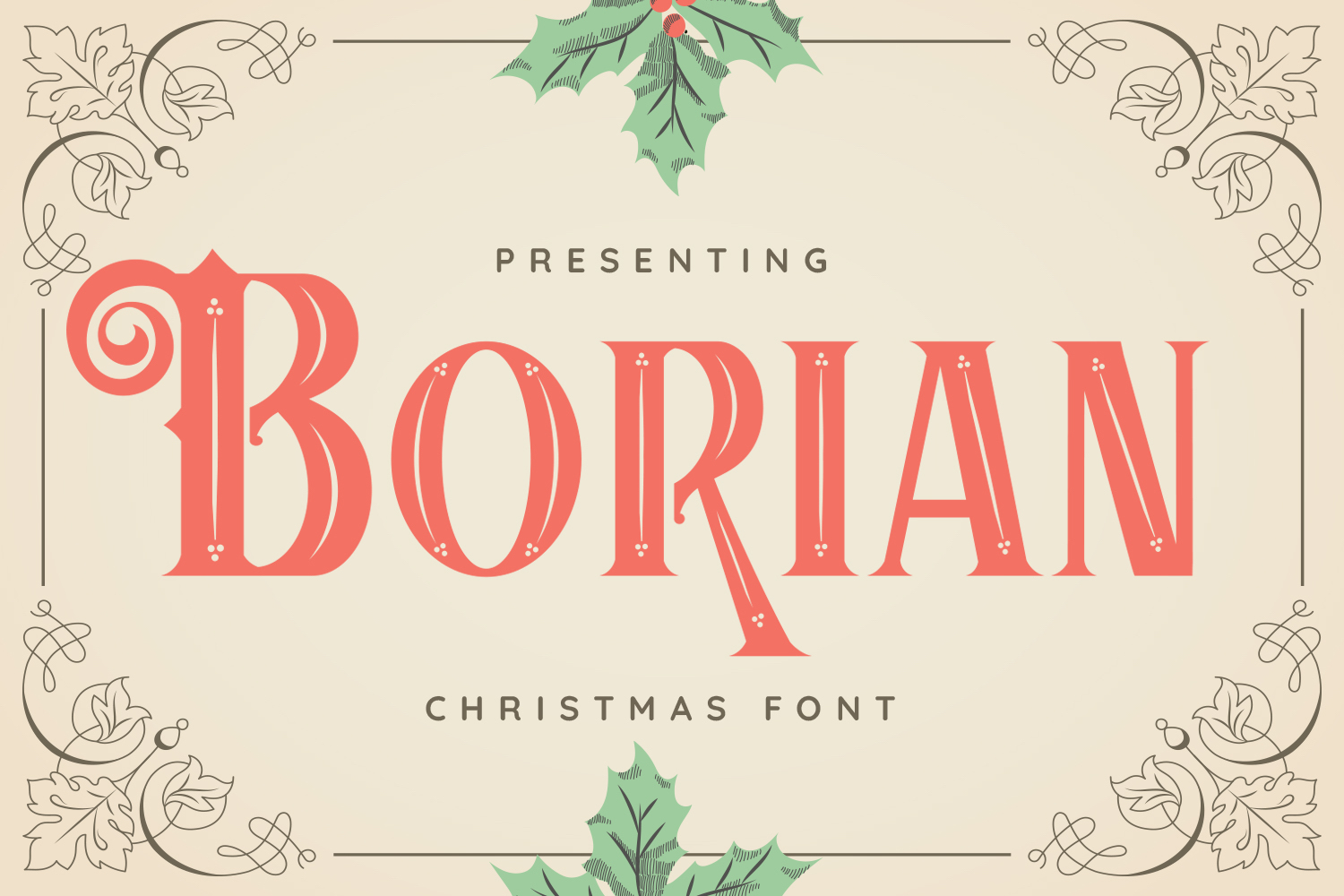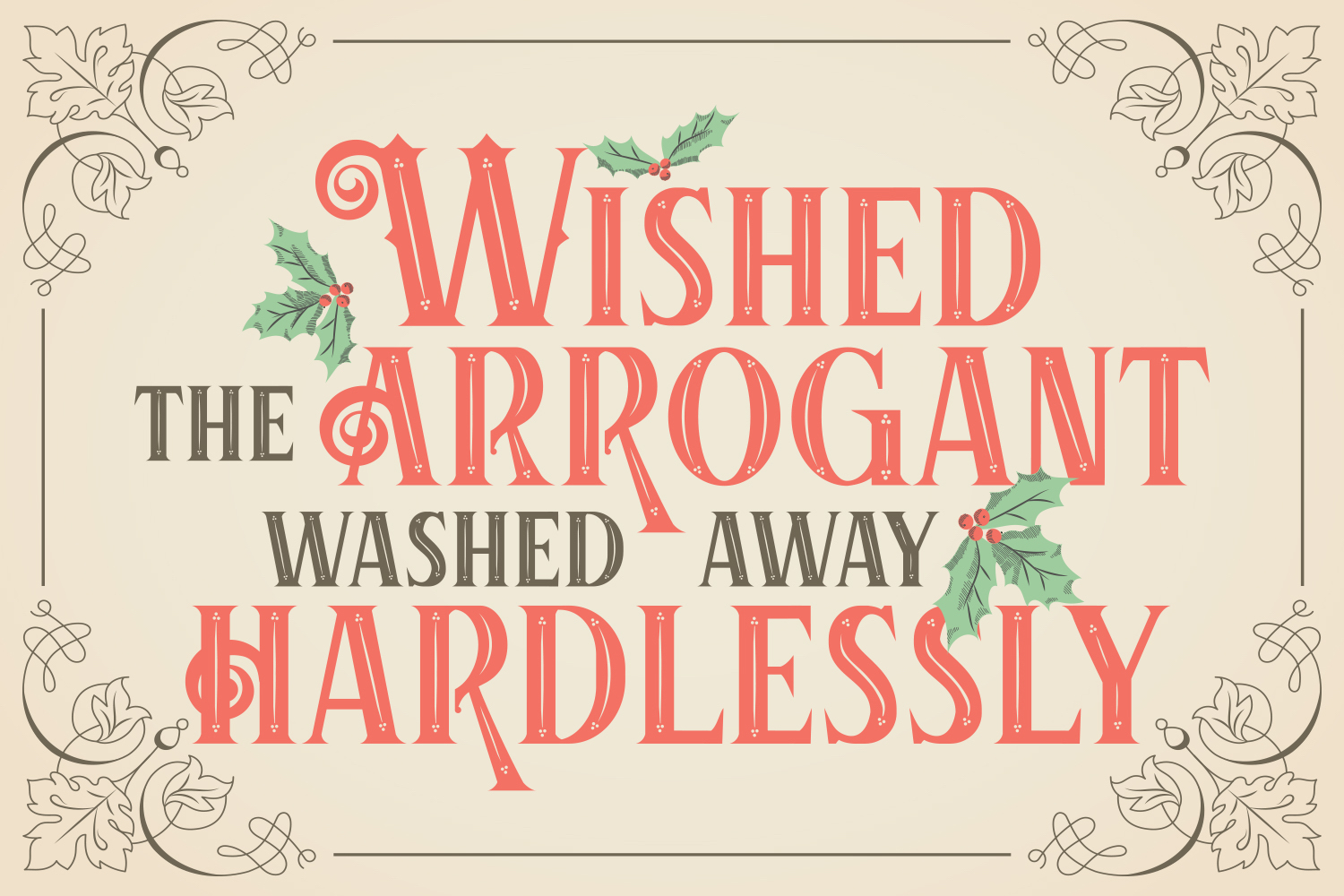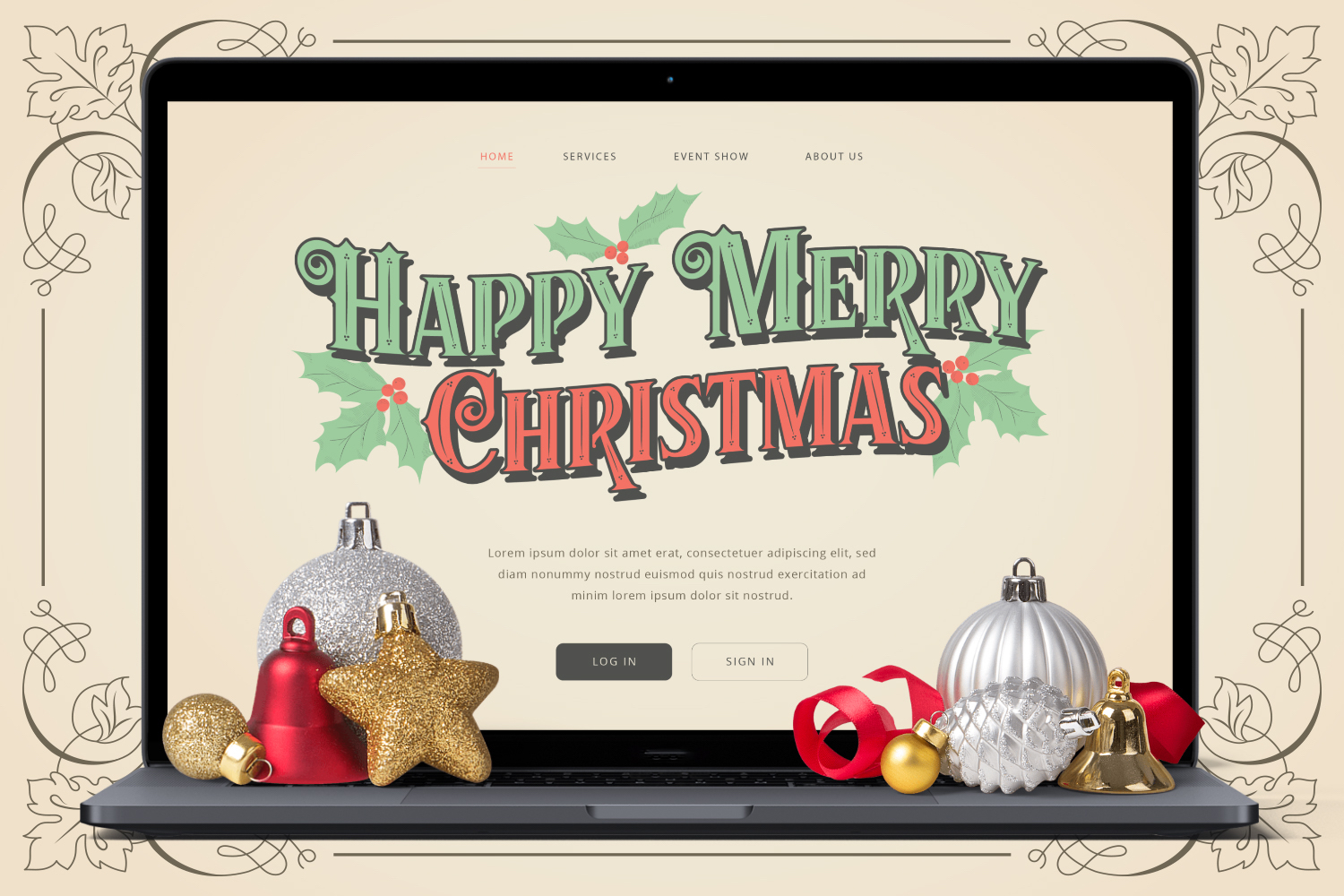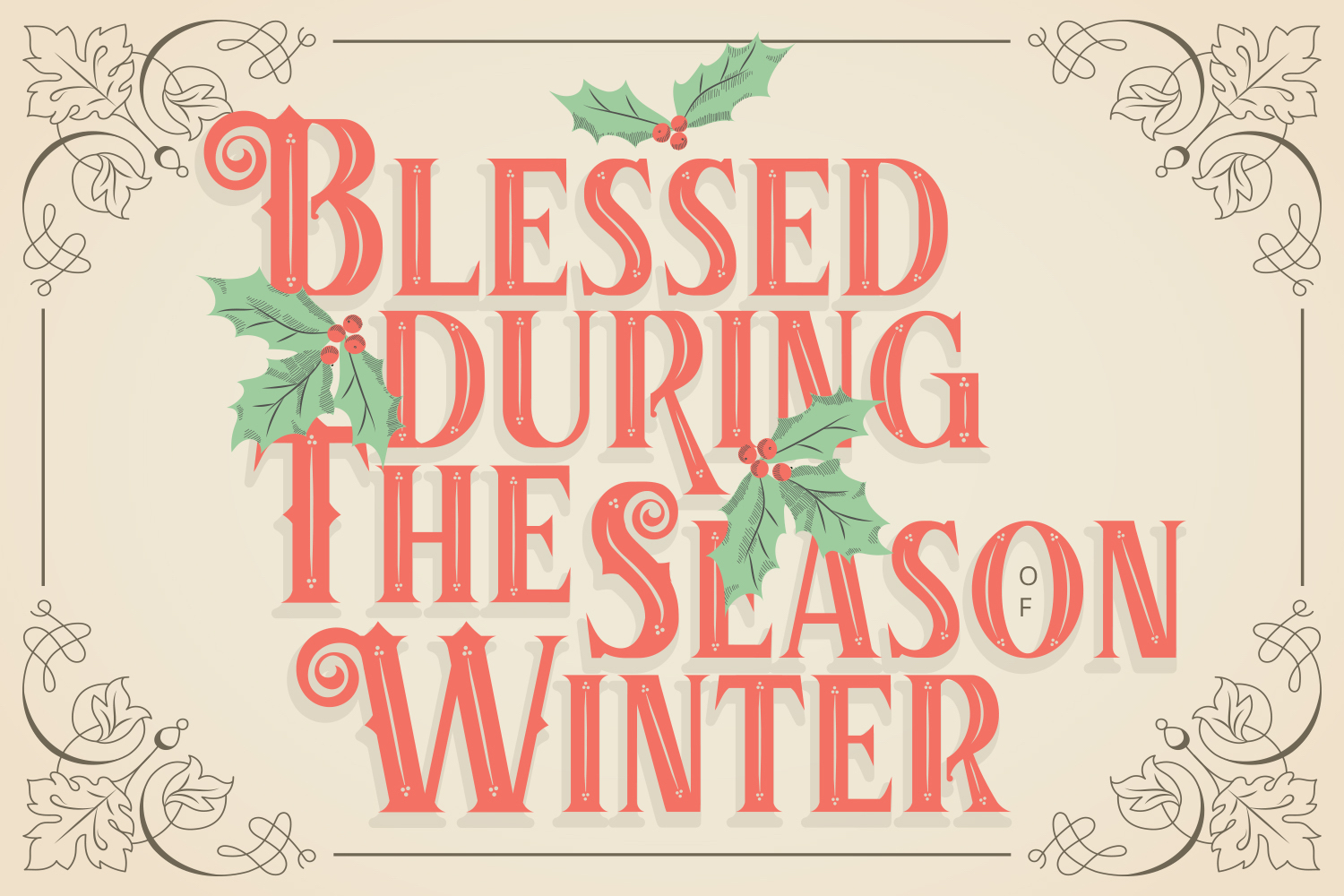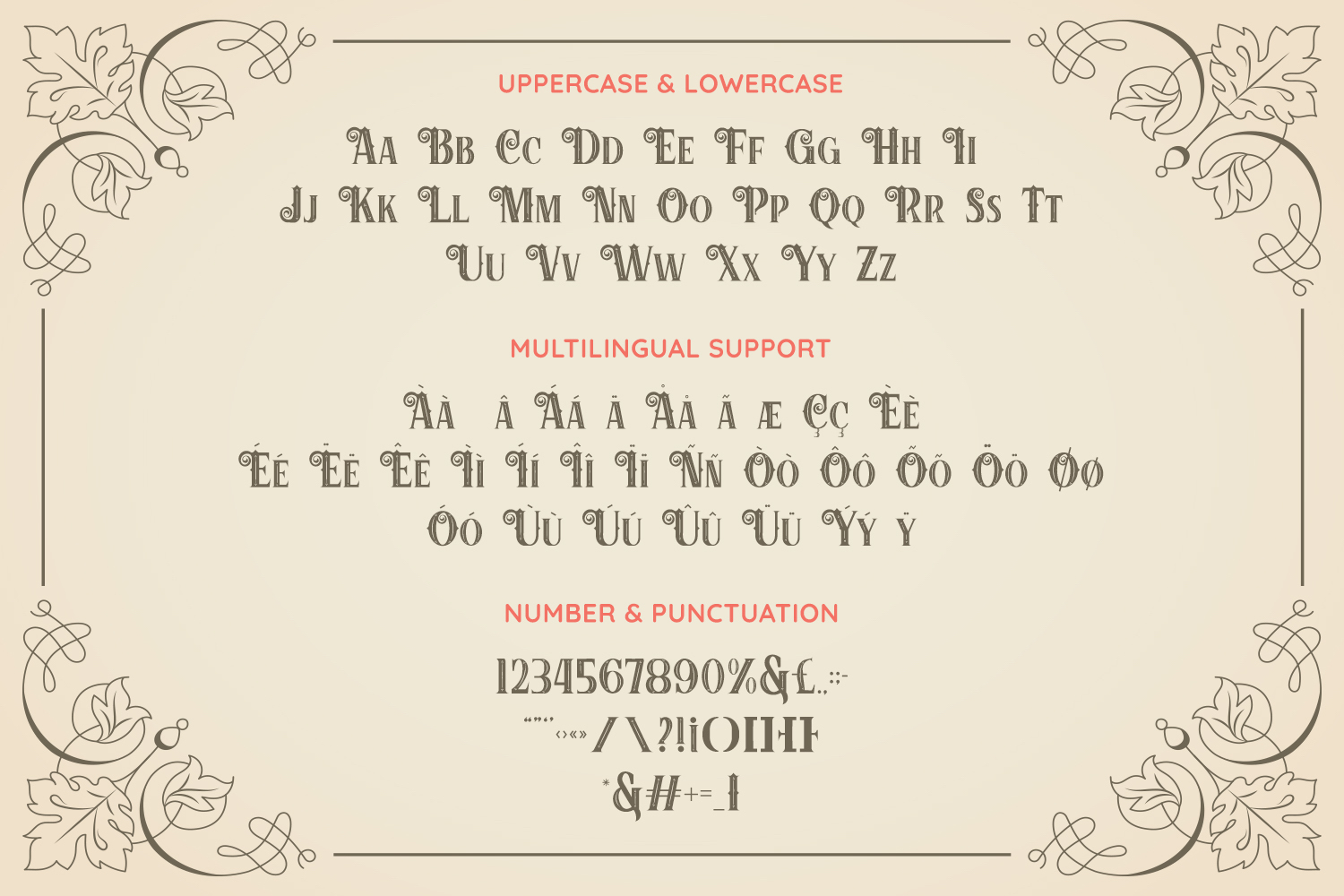
Borian is a vintage-inspired Christmas font that blends classic elegance with festive charm. Its sharp, serif letterforms are adorned with delicate ornaments and a gothic flair, making it perfect for capturing the traditional spirit of the holidays. With both uppercase and lowercase characters, as well as multilingual support, Borian offers versatility for a wide range of seasonal projects.
Whether you’re designing Christmas cards, holiday posters, festive merchandise, or nostalgic packaging, Borian adds a warm, handcrafted touch. Its distinctive curls and pointed terminals give it a sophisticated yet playful personality. Ideal for anyone wanting to make their designs feel timeless and magical.
Borian